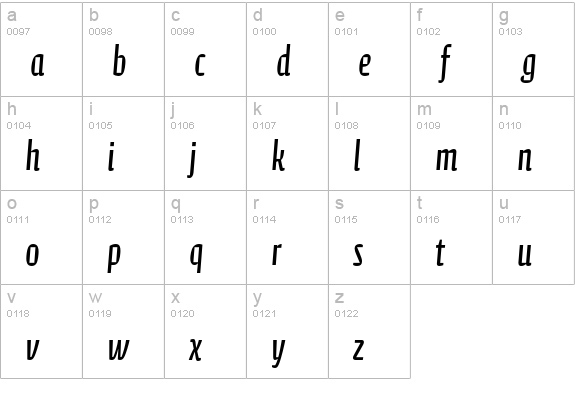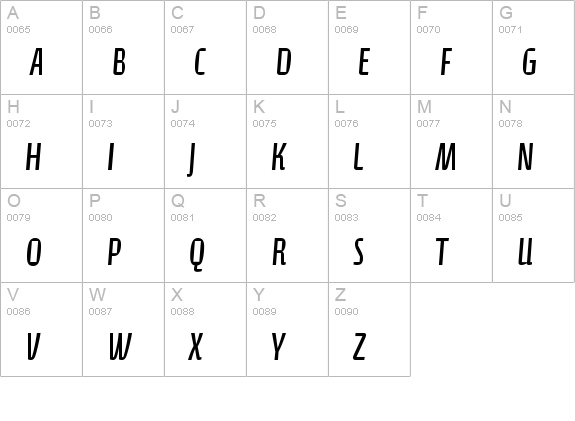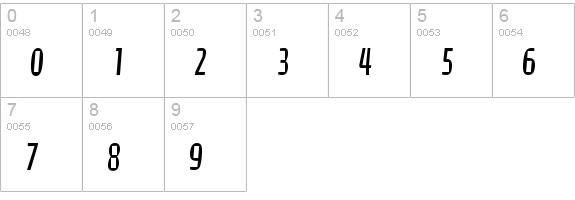
Calcite Pro Font Details
Introducing Calcite Pro font - a sleek and modern typeface designed for a wide range of creative projects. With its clean lines and elegant curves, Calcite Pro exudes sophistication and professionalism. This versatile font is perfect for branding, advertising, graphic design, and more. What sets Calcite Pro apart is not only its striking appearance but also the fact that it is available for free download at FontsMarket.com. Yes, you read that right - this premium font can be yours at no cost, making it accessible to designers and creators of all levels. Whether you're working on a logo, website, print materials, or any other project that requires a touch of sophistication, Calcite Pro is sure to elevate your design. Download it today and see for yourself the impact this font can have on your work.